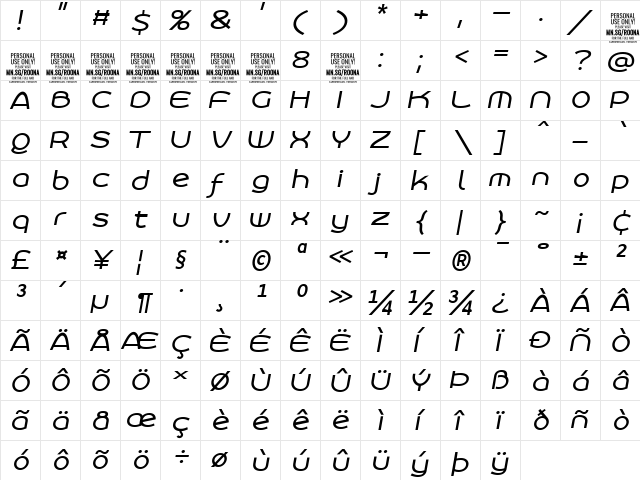
Roona Sans Medium PERSONAL Italic
| Foundry | Mans Greback |
| Designer | Mans Greback |
Design Context for Roona Sans Medium PERSONAL Typeface
Roona Sans Medium PERSONAL takes a measured approach to typography — its balanced proportions and neutral character make it a reliable workhorse for both digital and print work. The dynamic lean of this cut emphasises speed and emphasis in any layout.